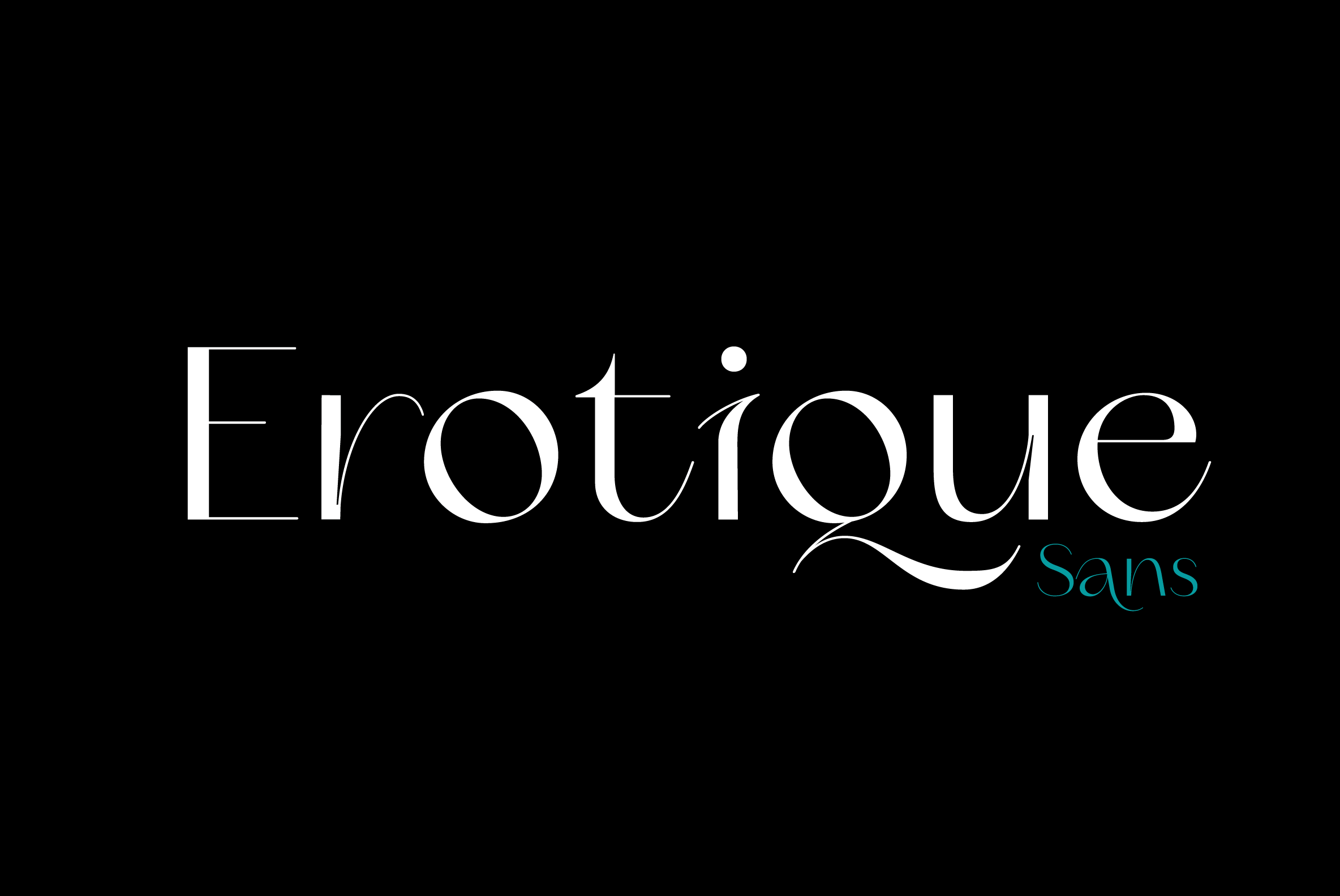
Introducing Erotique Sans: The Ultimate Typeface for Fashion and Beauty Design
In the world of fashion and beauty, presentation is everything. From clothing brands to cosmetic products, the right font can make all the difference in how your designs are perceived. Imagine a world where the Vogue font never existed – it’s hard to picture, right? The perfect font can elevate your brand, helping it stand out in a crowded market. That’s where Erotique Sans by Zetafonts comes in. This unique and elegant typeface is designed specifically for fashion and beauty applications, making it an ideal choice for your next project.
Zetafonts: Crafting Typography for a World of Design
Zetafonts is a Florence-based foundry that has been creating aesthetically inspiring and functional typefaces for over a decade. Founded by Francesco Canovaro, Debora Manetti, and Cosimo Lorenzo Pancini, their mission is to provide flexibility, individuality, and artistry to graphic designers all around the globe. With a keen eye for innovation and a passion for beautiful design, Zetafonts has established itself as a go-to source for exceptional typefaces, and they are one of our favorite type foundries here at YouWorkForThem.
Erotique Sans: Elegance Meets Edge
Created by Cosimo Lorenzo Pancini and Maria Chiara Fantini with assistance from Solenn Bordeau, Erotique Sans is the sans serif counterpart to Erotique. This typeface evolved from the original design of Lovelace, fusing its romantic curves with the glitchy fluidity of trans-modern neo-brutalist typography. The result is a font that embodies feminine assertiveness and self-confidence.
With its restrained didonesque elegance, Erotique Sans is primarily designed for display use. Its high-contrast design shines in projects that call for subtle elegance and a contemporary edge. The typeface comes in various weights – regular, medium, bold, and monoline – each of which is paired with an alternate version. This provides immediate access to a plethora of exotic alternate letterforms, available as OpenType Stylistic Sets in the standard family.
Erotique Sans isn’t just a great option for those seeking the perfect fashion font or vintage style fonts; it’s also ideal for creating logos and titling. The typeface is accompanied by Erotique Flourishes, a collection of whiplike fleurons that can be added to select letters or used as interlocking patterns.
When it comes to fashion typography, Erotique Sans is a versatile choice. Its high contrast lends itself well to larger text sizes, while its complementary Erotique Text weight allows for longer text typesetting, thanks to its streamlined design, lower contrast, and improved readability.
Boasting a character set of over 500 glyphs, Erotique Sans covers almost 200 languages using extended Latin. Additionally, the typeface includes advanced OpenType features such as Stylistic Alternates, Standard and Discretionary Ligatures, Positional Numerals, Swash, and Case Sensitive Forms.
The Takeway